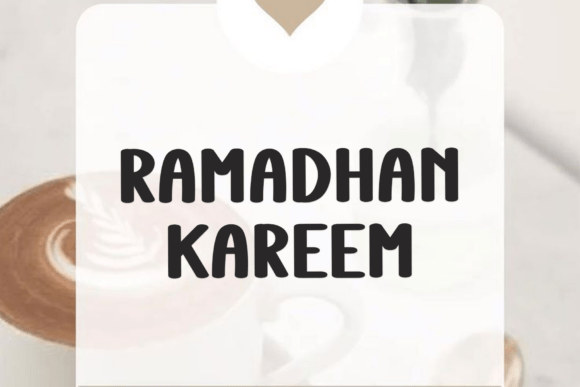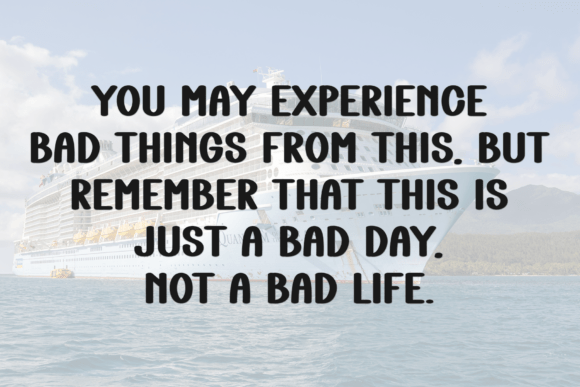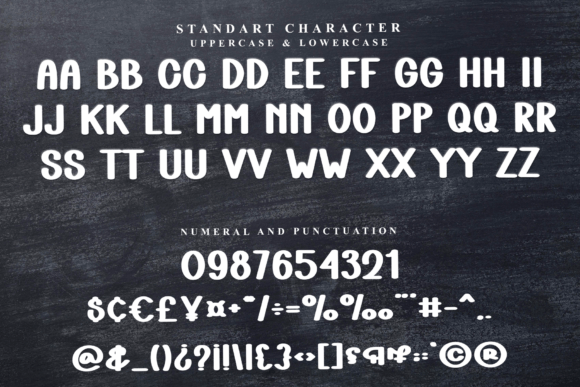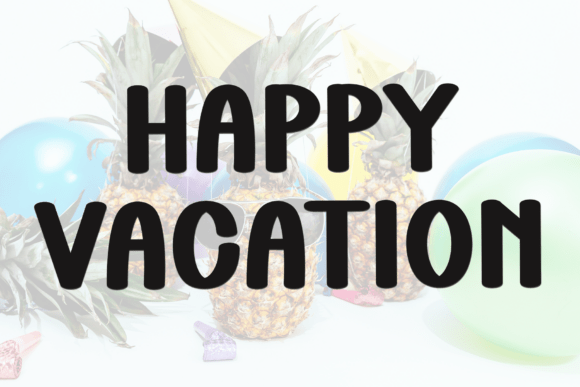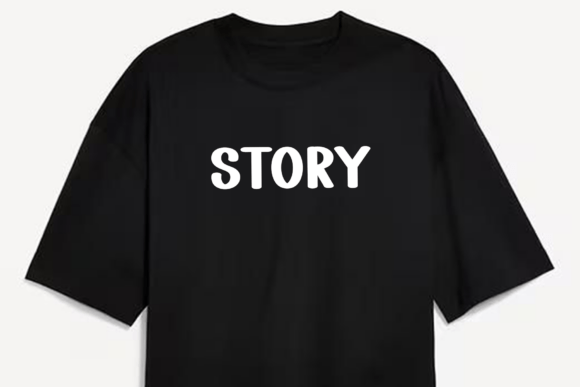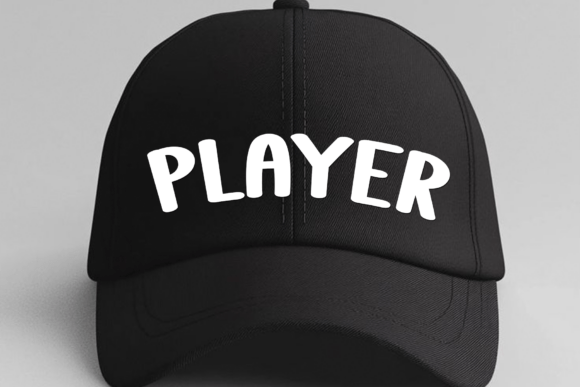
Introducing Brother Another Font: A Festive and Merry Typeface for the Holiday Season
The holiday season is upon us, and what better way to get into the spirit than with a font that’s as festive and merry as Brother Another Font? This delightful typeface is designed to capture the magic and enchantment of the holiday season, making it perfect for a wide range of designs, from greeting cards and gift tags to holiday-themed projects and more.
A Decorative and Whimsical Flair
Brother Another Font is a true showstopper, with its decorative elements and whimsical flair adding a touch of wonder to your designs. The font’s unique and playful style is sure to bring a smile to the face of anyone who sees it, making it the perfect choice for designers and crafters looking to add a little extra something special to their work.
Whether you’re creating holiday-themed stationery, crafting beautiful gift tags, or designing festive decorations, Brother Another Font is the perfect choice. Its decorative elements and whimsical flair will add a touch of enchantment to your designs, making them truly unforgettable.
Brother Another Font is specifically designed with the holiday season in mind, making it the perfect choice for a wide range of holiday-themed projects. From Christmas cards and Hanukkah greetings to New Year’s Eve invitations and Thanksgiving decorations, this font is sure to bring a touch of festive cheer to your designs.
But Brother Another Font isn’t just limited to holiday-themed projects. Its decorative and whimsical style makes it perfect for a wide range of designs, from birthday cards and party invitations to wedding decorations and more.
One of the best things about Brother Another Font is that it’s PUA encoded, which means you can access all of the amazing glyphs and ligatures with ease. This makes it simple to get the most out of your font, and to create beautiful and unique designs that will stand out from the crowd.
With PUA encoding, you can easily access all of the font’s decorative elements and special characters, making it simple to add a touch of magic to your designs. Whether you’re a seasoned designer or a crafter just starting out, Brother Another Font is easy to use and fun to work with.
Bring a Cheerful and Nostalgic Ambiance to Your Words
Brother Another Font is more than just a font – it’s an experience. With its cheerful and nostalgic ambiance, it’s sure to bring a smile to the face of anyone who sees it. Whether you’re creating designs for personal use or for clients, this font is sure to bring a touch of joy and wonder to your work.
So why settle for a boring, ordinary font when you can add a touch of magic to your designs with Brother Another Font? With its decorative elements, whimsical flair, and PUA encoding, this font is the perfect choice for designers and crafters looking to create beautiful and unique designs that will stand out from the crowd.
Get Ready to Shine with Brother Another Font
With Brother Another Font, you’re not just getting a font – you’re getting a way to make your designs shine. Whether you’re a seasoned designer or a crafter just starting out, this font is sure to bring a touch of excitement and wonder to your work.
In conclusion, Brother Another Font is a must-have for any designer or crafter looking to add a touch of magic to their work. With its festive and merry style, decorative elements, and PUA encoding, it’s the perfect choice for holiday-themed projects and beyond. So why settle for a boring, ordinary font when you can shine with Brother Another Font?